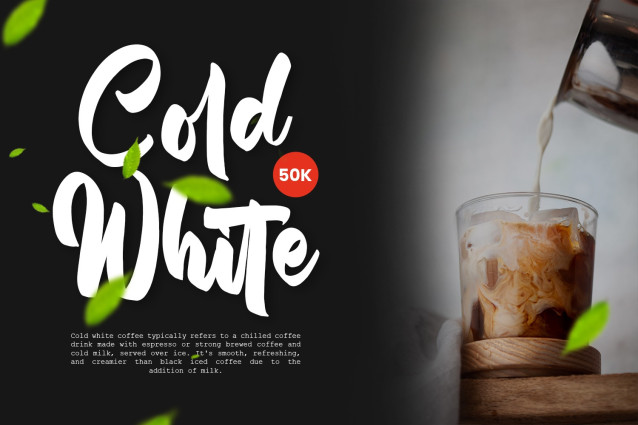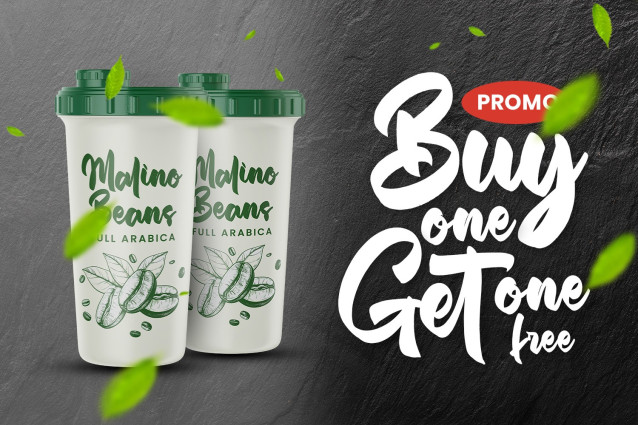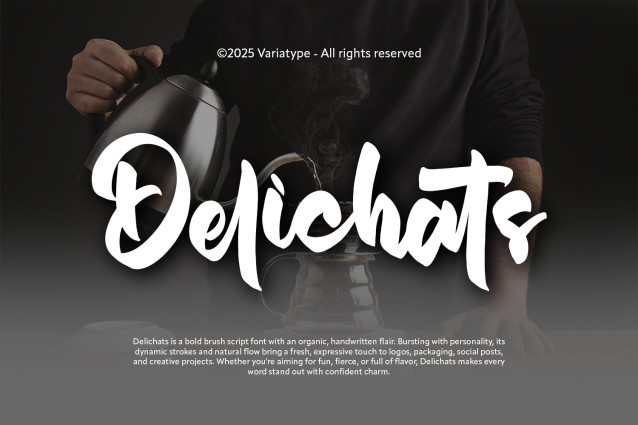
Delichats Script Font
Delichats Script Font is a bold brush script font with an organic, handwritten flair. Bursting with personality, its dynamic strokes and natural flow bring a fresh, expressive touch to logos, packaging, social posts, and creative projects. Whether you’re aiming for fun, fierce, or full of flavor, Delichats makes every word stand out with confident charm.